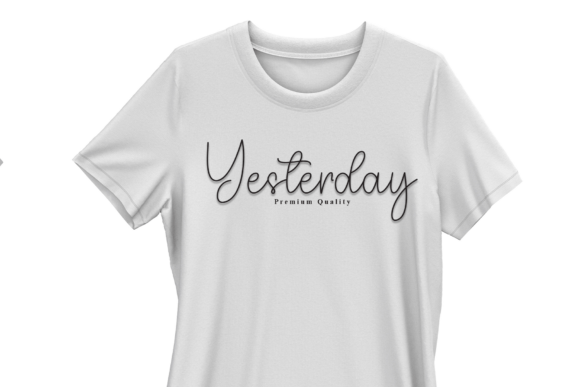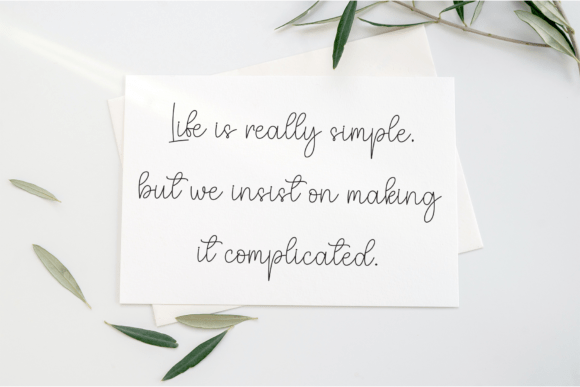
Adventure Font
Adventure is a stylish handwritten script font that radiates elegance and fluidity. Its smooth, flowing strokes create a natural and sophisticated feel, perfect for branding, invitations, and creative projects. With a graceful balance of charm and modernity, this typeface adds a personal, artistic touch to any design.